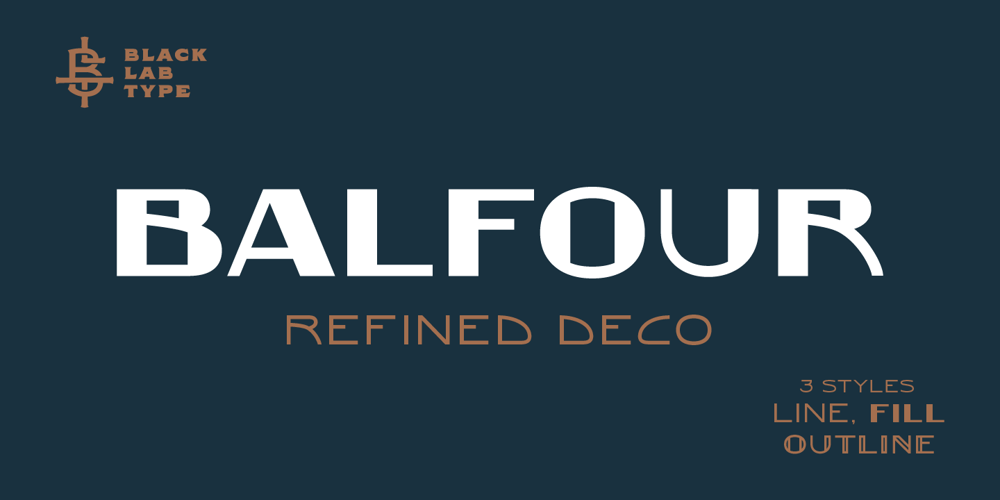
BLT Balfour Font Family was designed by Kenny Li and published by Black Lab Type. BLT Balfour contains 3 styles and family package options. BLT Balfour : Art Deco Revival Font Balfour is a modern Art Deco typeface revival. Built from historic references in architecture during this time period, Balfour exudes class and elegance, yet still honors the style with unapologetic bold geometric forms. Pay close attention to the letterforms B and R, and how their extreme x-heights play off of the elongated strokes of C, D and G. Unique features throughout the character set make it less predictable and more unique than any Art Deco typeface before it. The geometry of this typeface plays from one letter to the next. Fill and Outline styles work well in headlines, logos and large type. The Line style is effective at all sizes and can be used in combination with other styles to achieve visual hierarchy.